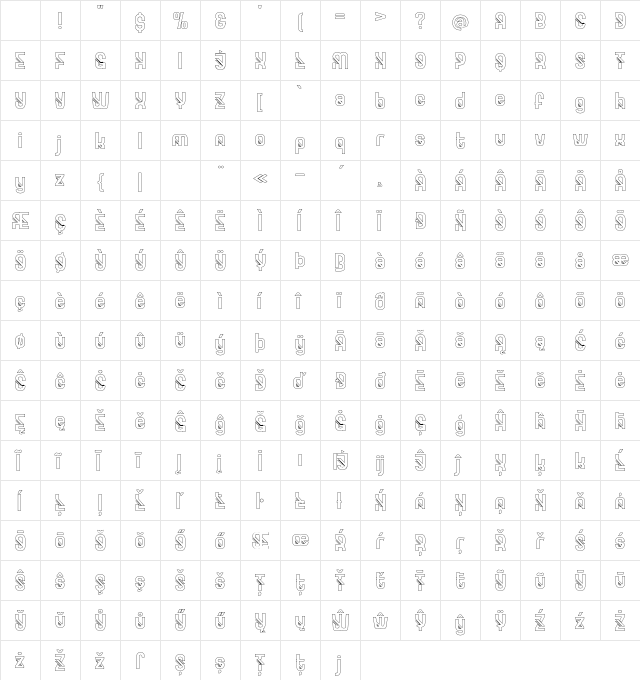
Complete GOXAC-Outline Regular glyph index. Displaying only characters natively supported by GOXAC-Outline Regular font.
GOXAC-Outline is built around its visual character rather than neutral utility - its distinctive forms are designed to make an impression at display sizes.
Font Pairing: Pair with a clean neutral sans-serif for body copy to let GOXAC-Outline's character lead without overwhelming the composition.
Pro Tip: Use GOXAC-Outline exclusively at display sizes - it was designed to be seen, not read at length. Let a neutral companion handle body copy.